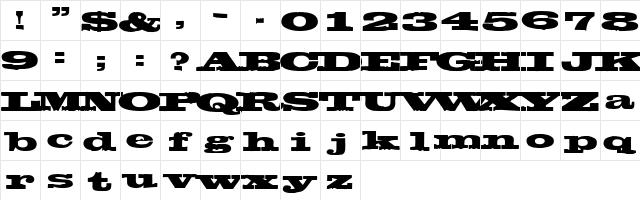
Egyptientto2 Regular
Design Context for Egyptientto2 Typeface
Egyptientto2 offers clean, dependable letterforms without strong stylistic allegiance, making it a practical choice for designers who need flexibility.